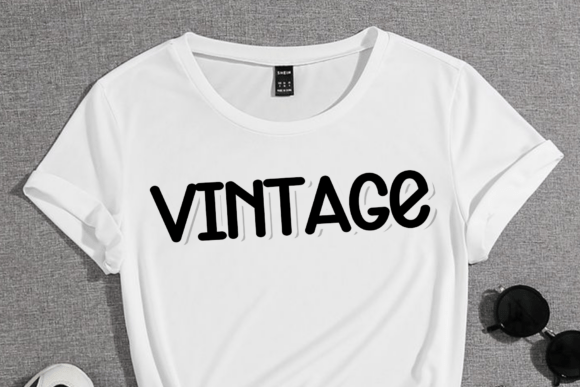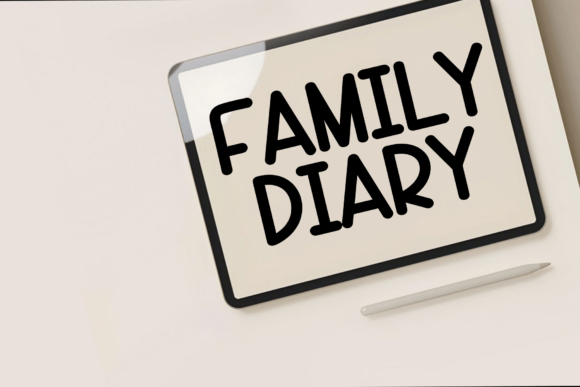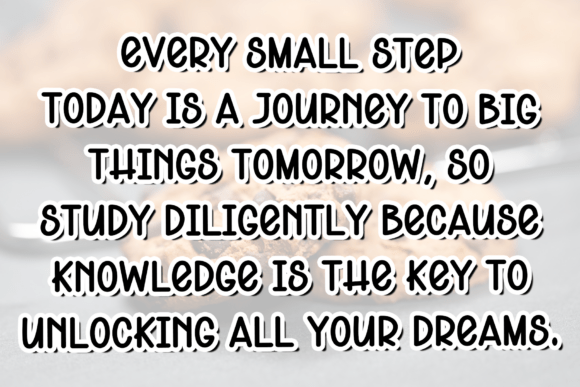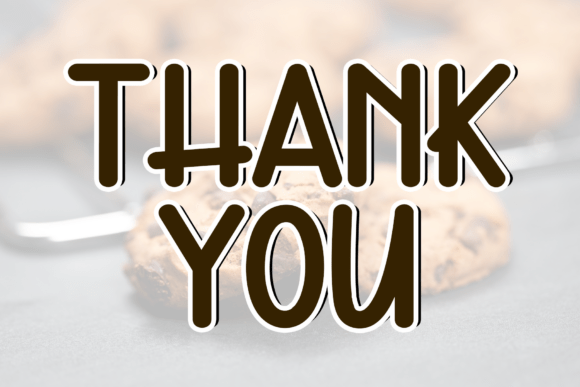
Biscuit Font: The Perfect Addition to Your Design Toolbox
Are you looking for a font that can add a touch of fun and friendliness to your designs? Look no further than the Biscuit font. This sans-serif display font is perfect for designers and crafters who want to create joyful, casual, and handmade designs. In this article, we’ll take a closer look at the Biscuit font, its features, and how you can use it to elevate your designs.
What is Biscuit Font?
Biscuit is a fun and friendly sans-serif display font with a rounded, slightly retro twist. Its thick, playful strokes and quirky shapes give it a sweet personality that’s perfect for a variety of design projects. The font’s bold design and easy readability make it ideal for logos, posters, digital products, and merchandise that need to feel joyful, casual, and handmade.
Key Features of Biscuit Font
The Biscuit font comes with a range of features that make it both functional and expressive. Some of its key features include:
- Uppercase and lowercase letters
- Multilingual support
- Numbers and punctuation
- A variety of symbols
These features make the Biscuit font perfect for a wide range of design projects, from snack packaging and kids’ books to cheerful branding and craft projects.
Use Cases for Biscuit Font
The Biscuit font is incredibly versatile and can be used for a variety of design projects. Here are some use cases to get you started:
- Snack packaging: The Biscuit font is perfect for snack packaging that needs to feel fun and playful. Its bold design and easy readability make it ideal for labels and packaging.
- Kids’ books: The Biscuit font is a great choice for kids’ books that need to feel friendly and approachable. Its quirky shapes and playful strokes make it perfect for storybooks and early readers.
- Cheerful branding: The Biscuit font is perfect for brands that want to feel joyful and casual. Its bold design and easy readability make it ideal for logos, business cards, and marketing materials.
- Craft projects: The Biscuit font is a great choice for craft projects that need to feel handmade and personal. Its quirky shapes and playful strokes make it perfect for DIY tutorials, craft patterns, and handmade products.
Why Choose Biscuit Font?
There are many fonts to choose from, but the Biscuit font stands out for its unique combination of fun, friendliness, and functionality. Here are some reasons why you should choose the Biscuit font for your next design project:
- Unique personality: The Biscuit font has a unique personality that’s hard to find in other fonts. Its quirky shapes and playful strokes make it perfect for designs that need to feel fun and friendly.
- Ease of use: The Biscuit font is incredibly easy to use, with both uppercase and lowercase letters, multilingual support, numbers, punctuation, and a variety of symbols.
- Versatility: The Biscuit font is incredibly versatile and can be used for a wide range of design projects, from snack packaging to cheerful branding.
The Biscuit font is a fun and friendly sans-serif display font that’s perfect for designers and crafters who want to create joyful, casual, and handmade designs. Its unique personality, ease of use, and versatility make it a great addition to any design toolbox. Whether you’re working on snack packaging, kids’ books, cheerful branding, or craft projects, the Biscuit font is sure to bring a touch of fun and friendliness to your designs.